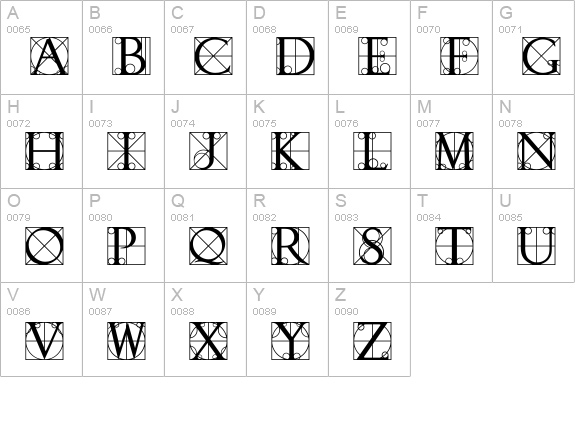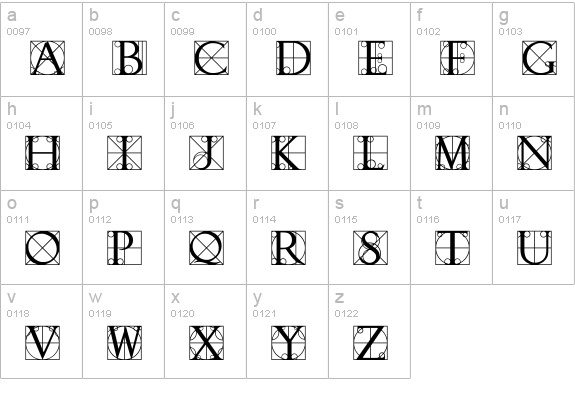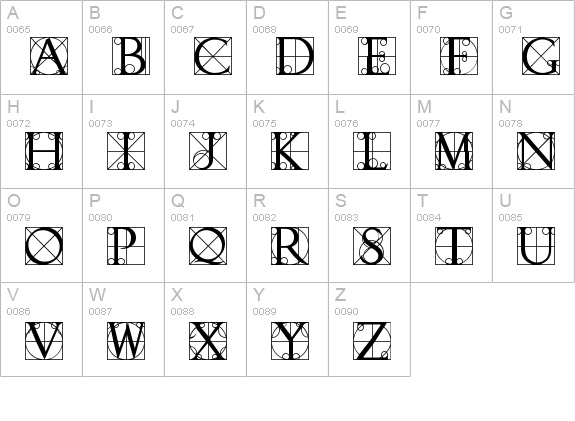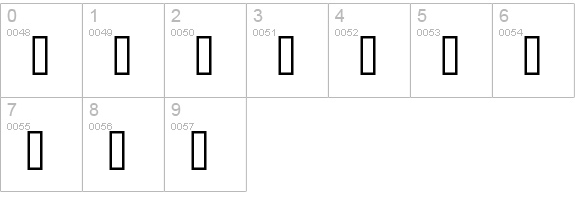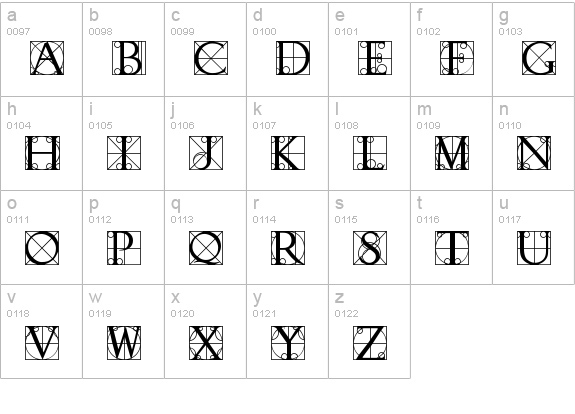
Initial Caps 3 Normal is the standard, neutral variant in the Initial typeface family \xE2\x80\x94 well suited to general body text, paragraphs, and standard typographic work.
The Initial Caps 3 Normal font is a captivating and versatile typeface that exudes elegance and sophistication. With its beautifully designed initial caps, this font is perfect for adding a touch of grandeur to any project. Whether you're designing a wedding invitation, creating a logo, or working on a branding project, Initial Caps 3 Normal will elevate your design to new heights. What makes this font even more appealing is that it is freely available to download at FontsMarket.com. That's right, you don't have to break the bank to add this stunning font to your collection. Simply visit FontsMarket.com and enjoy the convenience of accessing this font at no cost. Whether you're a professional designer or a hobbyist, this font will be an invaluable addition to your toolkit. The carefully crafted details of Initial Caps 3 Normal font make it stand out from the crowd. Its clean lines and balanced proportions create a harmonious design that is pleasing to the eye. The capital letters are particularly striking, with intricate flourishes and elegant curves that give this font a timeless and classic feel. The versatility of Initial Caps 3 Normal font is another reason why it is a must-have for any designer. It works well in both large and small sizes, allowing you to use it for a variety of design projects. From headings and titles to body text and captions, this font will make your words pop and capture the attention of your audience. So why wait? Download Initial Caps 3 Normal font today and take your designs to the next level. With its stunning initial caps, elegant design, and the fact that it is freely available at FontsMarket.com, this font is a true gem. Don't miss out on the opportunity to enhance your designs with this extraordinary typeface.